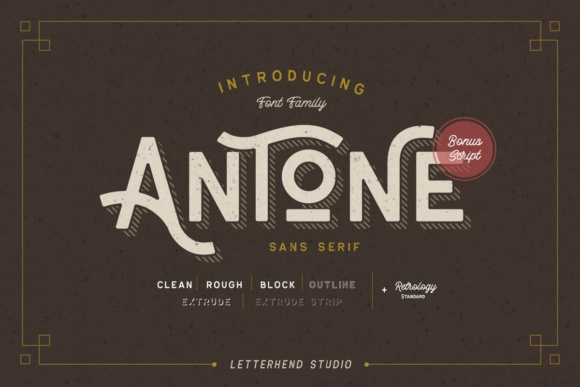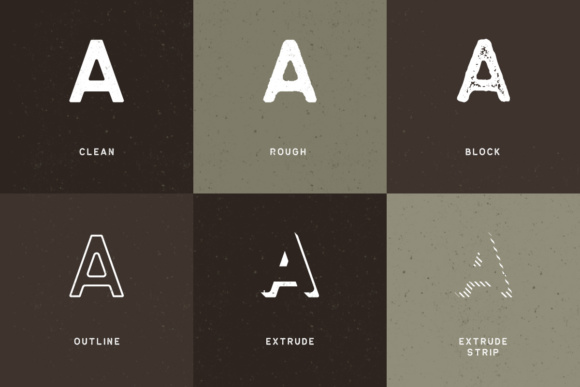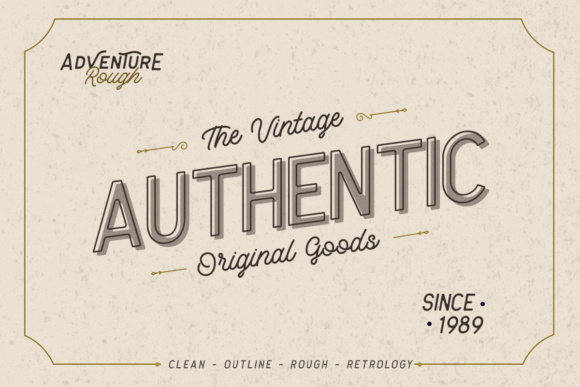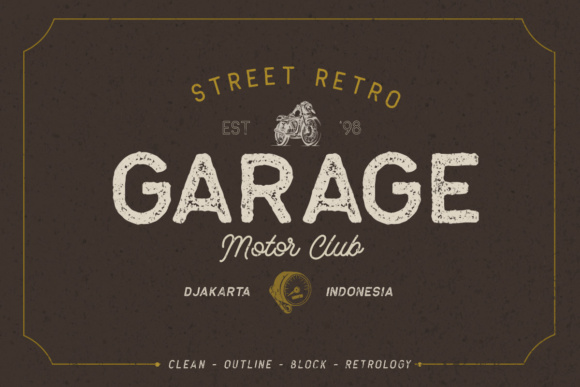
Antone Family Font
About the Antone Family Font
Step up your design game with Antone Family Font, a font that exudes confidence and style. A font family which has 7 font versions. The character of the clean version of this font is bold, strong, yet elegant. While the rough and block version is suitable for vintage & retro designs.
The clean Antone versions excel in headlines, logos, and short impactful text for branding projects. Its strong forms also work well on packaging where clear readability is paramount. Avoid using the clean styles for lengthy body text or UI elements; the boldness might overwhelm the reader. The rough and block versions are ideal for vintage-inspired designs, posters, and projects requiring a retro aesthetic.
Conversely, the rough variants are less suitable for applications demanding high legibility, such as websites or long-form publications. For a balanced pairing, consider pairing the clean Antone with a clean sans-serif like Lato for body text, or a delicate script like Great Vibes for secondary elements to provide contrast. With the rough Antone, a geometric sans-serif such as Futura would create a stylish, modern contrast.
Antone’s overall personality is sophisticated yet versatile. The clean styles project confidence and elegance, while the rough versions convey a sense of rugged charm and timelessness.